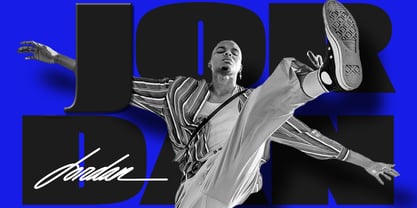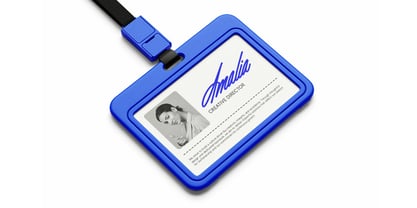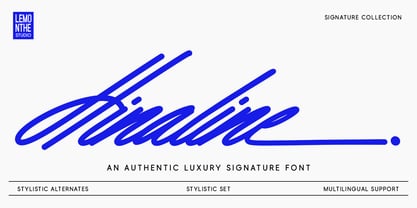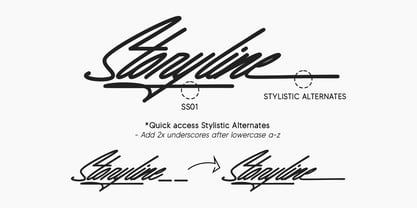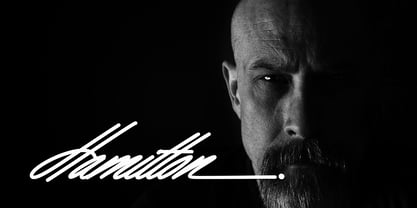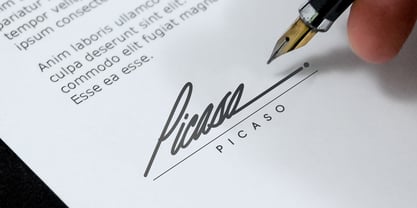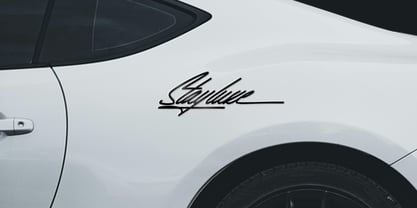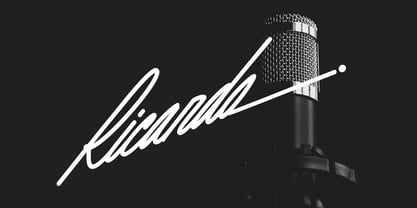
Hinaline
by Lemonthe
The Hinaline Font Family was designed by Dwi Ahidian and published by Lemonthe. Hinaline contains 1 styles. More about this family
Hinaline is a signature font with a quick and modern stroke style, suitable for design needs that aim to look professional and have a natural handwritten feel. Its long, slim, and consistent letter shapes make it easy to use in various visual projects such as logos, branding, product labels, packaging, invitations, greeting cards, posters, promotional materials, social media content, and many more. This font helps you create consistent visuals that are ready to use for any design purpose.